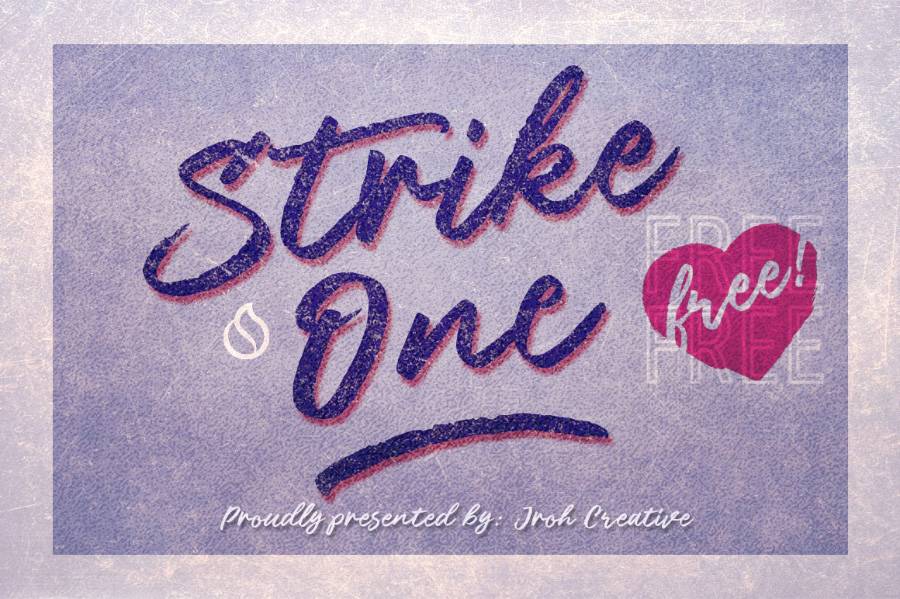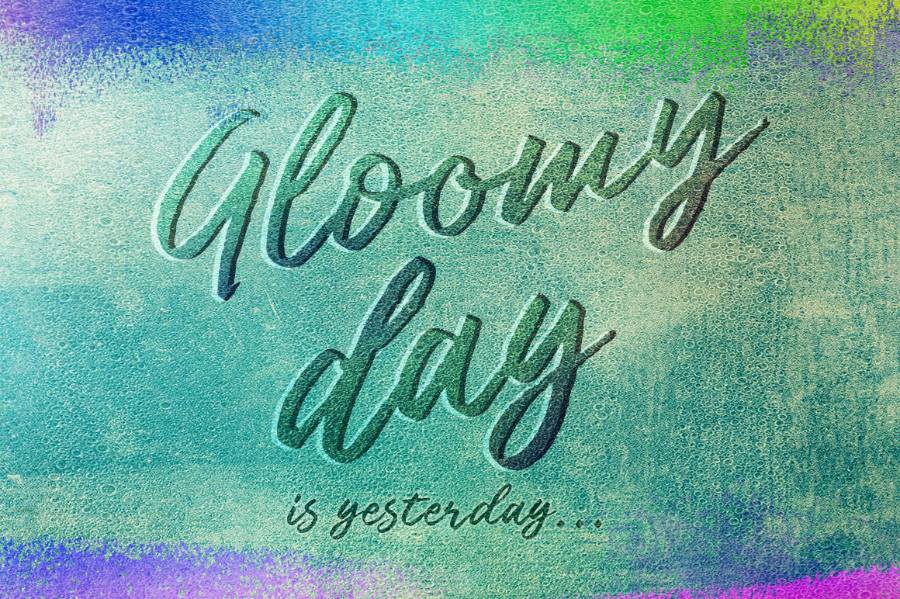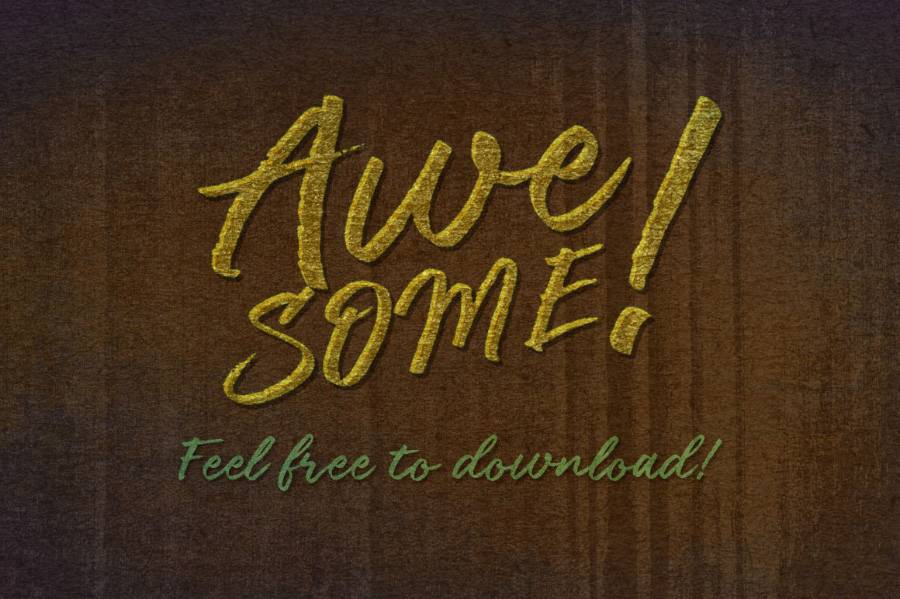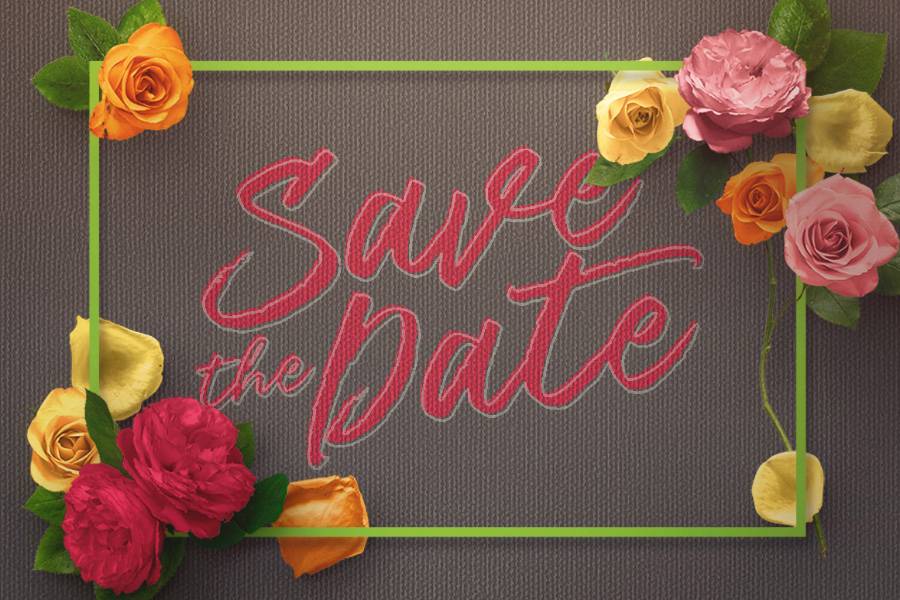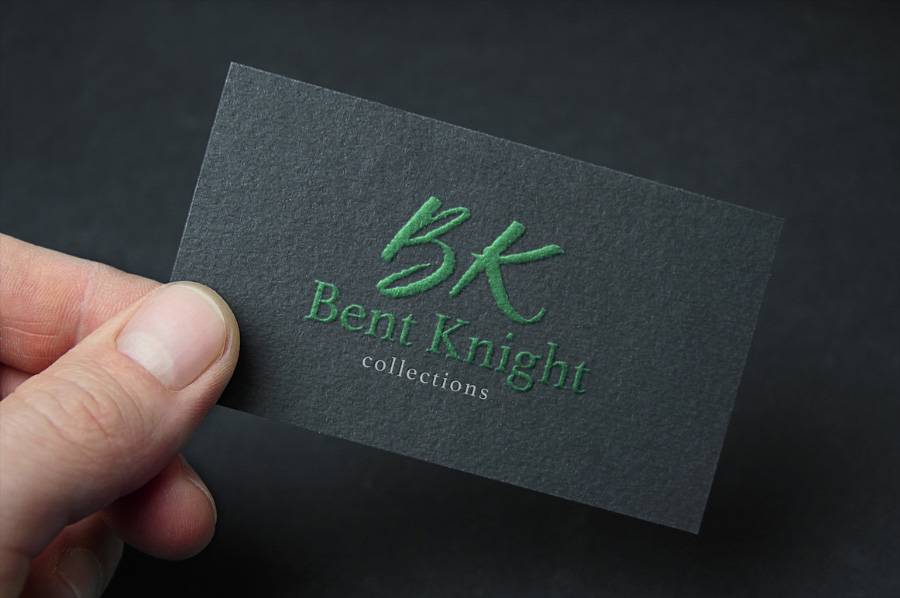
Strike One Script is an energetic and expressive handwritten script font with a bold, brushstroke style that conveys a lively and personal touch. Its dynamic letterforms feature varied stroke widths with textured edges, making it perfect for creative branding, invitations, and headlines that need a friendly yet impactful appearance. This font works well where you want to communicate authenticity and a handcrafted feel without compromising on style or legibility.
Strike One Script Font
About Strike One Script Font
| Designer | @zamroni_agus |